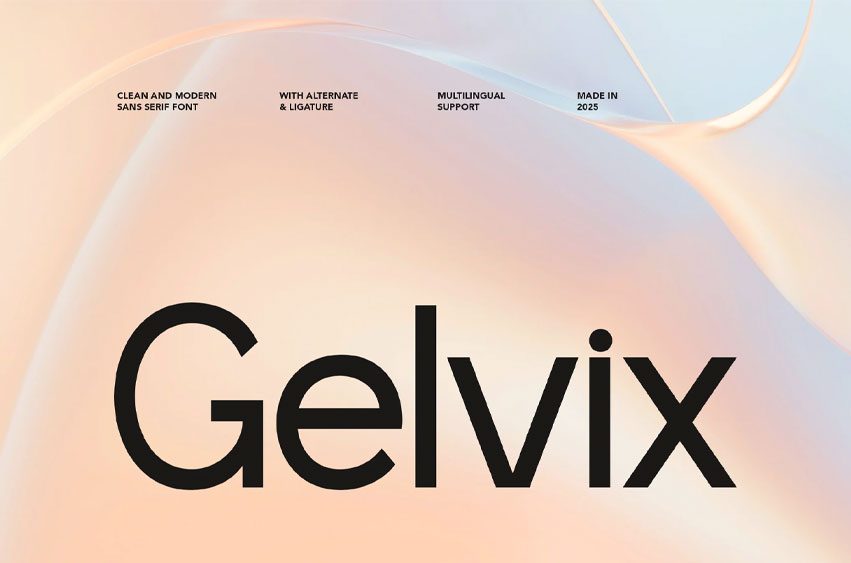
Gelvix Font is a sleek and contemporary sans-serif font crafted for modern creatives. With its clean lines, balanced proportions, and timeless elegance, Gelvix is the perfect choice for branding, editorial design, packaging, web design, and impactful headlines.
Designed with versatility in mind, Gelvix works beautifully across both print and digital platforms. Whether you’re creating bold title compositions or refined body text, its sharp yet approachable letterforms ensure readability and a sophisticated aesthetic.
• Uppercase alphabet A-Z
• Lowercase alphabet a-z
• Numbers 0-9
• Some punctuation
• Alternates & Ligatures